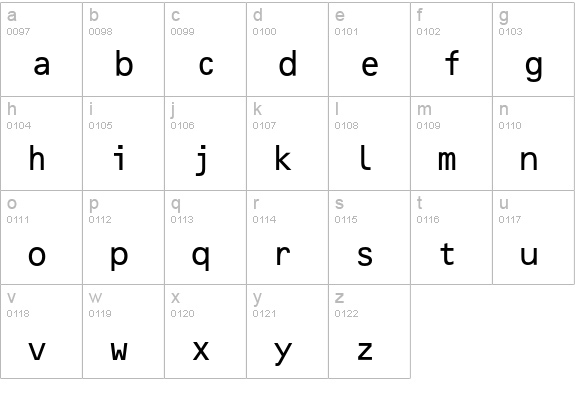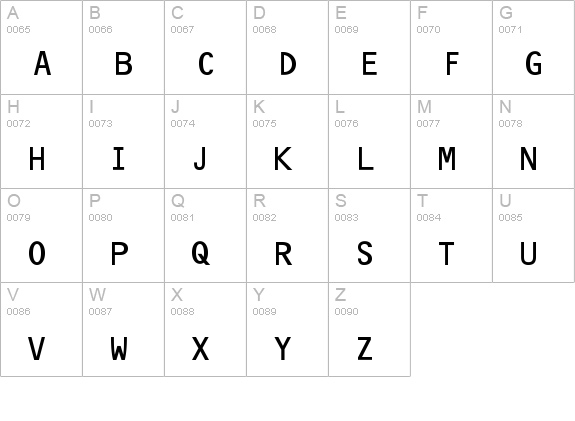
OCR-B 10 Pitch is a classic monospaced font designed for Optical Character Recognition (OCR) purposes. With a clear and easy-to-read design, this font is ideal for various applications such as scanning documents, creating forms, and generating barcodes. Its uniform spacing and distinctive characters make it highly legible and efficient for machine reading. The OCR-B 10 Pitch font is a versatile typeface that combines modern aesthetics with functional practicality. Its sleek and professional appearance lends itself well to business and administrative settings. Whether used for printing invoices, labeling products, or digitizing text, this font ensures accuracy and consistency in data processing. Best of all, OCR-B 10 Pitch is freely available for download at FontsMarket.com. This means you can easily access and use this font for your projects without any cost. Take advantage of this opportunity to enhance your documents and streamline your workflow with the OCR-B 10 Pitch font today!